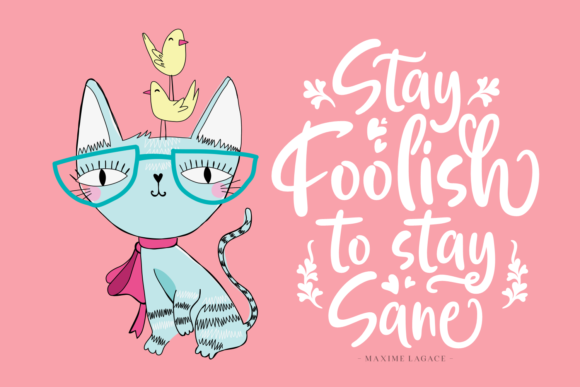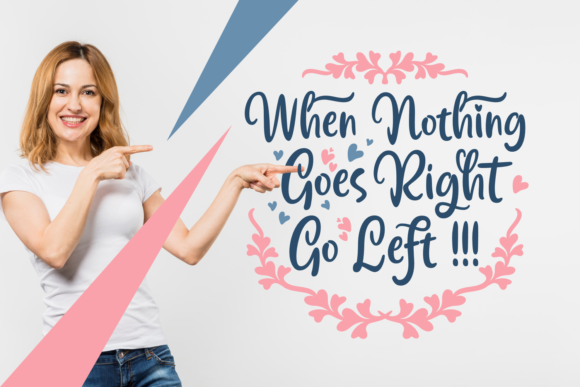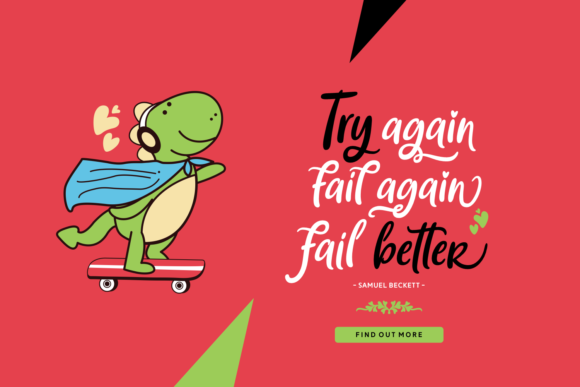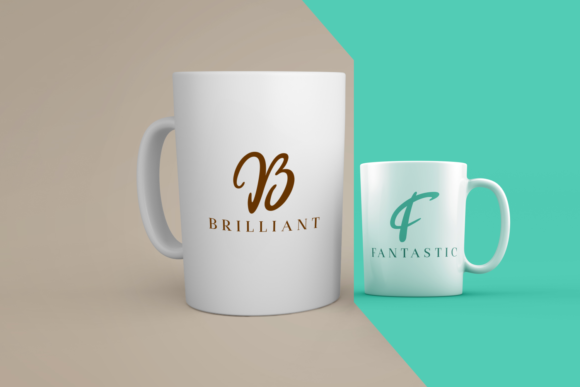
The Magic of Handwritten Fonts: Bringing Joy to Your Designs
Have you ever stared at a blank canvas, waiting for inspiration to strike? It’s a feeling we’ve all been in – the blank page staring back, refusing to yield to our creative dreams. But what if I told you that there’s a font that can bring a spark of magic to your designs, making the creative process a breeze? Introducing the Always Having Fun Font, a delightful handwritten font that’s equal parts elegant and playful.
This charming font is more than just a pretty face – it’s a game-changer for designers. With its childlike charm, it adds a touch of whimsy to any design project, making it perfect for branding, advertising, and even digital media. Whether you’re a seasoned pro or a design newbie, the Always Having Fun Font is sure to bring a smile to your face and a spring to your creative step.
Always Having Fun Font Key Features
- Font Family: Always Having Fun
- Unique Characteristics: This font features a playful and whimsical design, with a mix of rounded and geometric shapes. It includes a wide range of characters, including ligatures and swashes, to add a touch of personality to any design.
Always Having Fun Font Review
Always Having Fun Font is a playful and whimsical font that’s sure to bring a smile to your face. The font’s unique design ✨ features a mix of rounded and geometric shapes, creating a visually appealing and fun vibe.
The font is incredibly versatile, making it perfect for use in various contexts, such as children’s books, social media, and even packaging. It’s also highly customizable, allowing you to adjust the weight, spacing, and color to fit your design needs.
- Unique and playful design ✨
- Versatile and suitable for various contexts
- Fun and engaging aesthetic
- May not be suitable for formal or professional contexts
- Can be overwhelming if used in large quantities
- Limited support for certain languages
Overall, I think Always Having Fun Font is a great addition to any designer’s toolkit. While it may have some limitations, its unique design and versatility make it a great choice for projects that require a playful and engaging vibe.
Use the Always Having Fun Font for playful and creative projects, such as:
– Birthday invitations
– Party decorations
– Children’s book illustrations
– Any project that requires a fun and playful tone.
Alternatives to “Always Having Fun Font” for Designers
Lato Font is a modern sans-serif typeface that offers a clean and elegant design. It’s ideal for use in digital products, such as websites and mobile apps, where legibility is crucial. Lato Font is a great alternative to Always Having Fun Font as it provides a more professional and sophisticated look.
Comparison: While Always Having Fun Font is playful and cursive, Lato Font is more straightforward and modern. Lato Font is also more versatile and can be used in a wide range of contexts, from body text to headings.
Montserrat Font is a geometric sans-serif typeface that originated in Buenos Aires. It’s designed to be highly legible and versatile, making it suitable for use in urban environments. Montserrat Font is a great alternative to Always Having Fun Font as it provides a more urban and modern feel.
Comparison: While Always Having Fun Font is playful and informal, Montserrat Font is more formal and modern. Montserrat Font is also more geometric and structured, which makes it ideal for use in digital products.